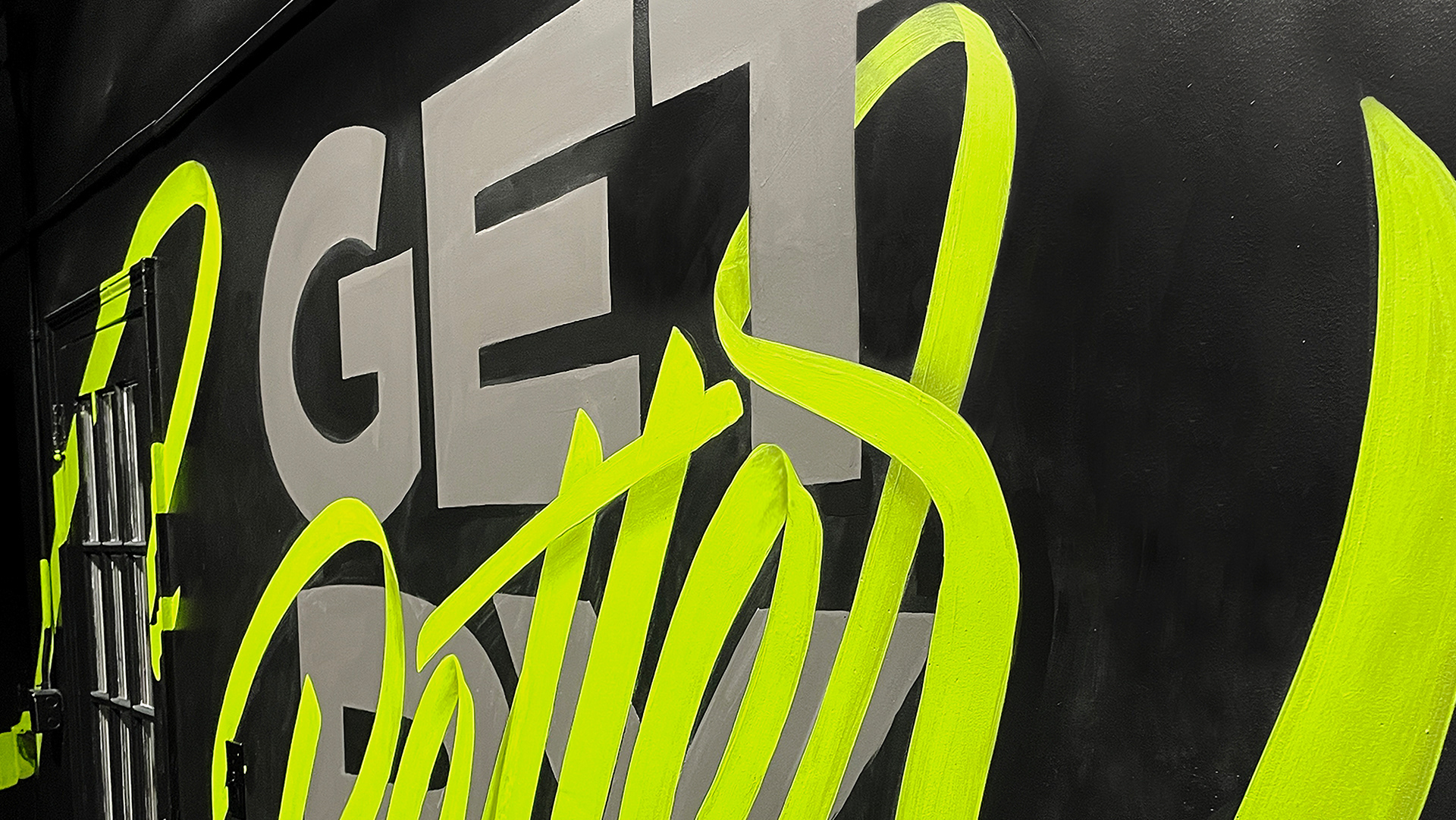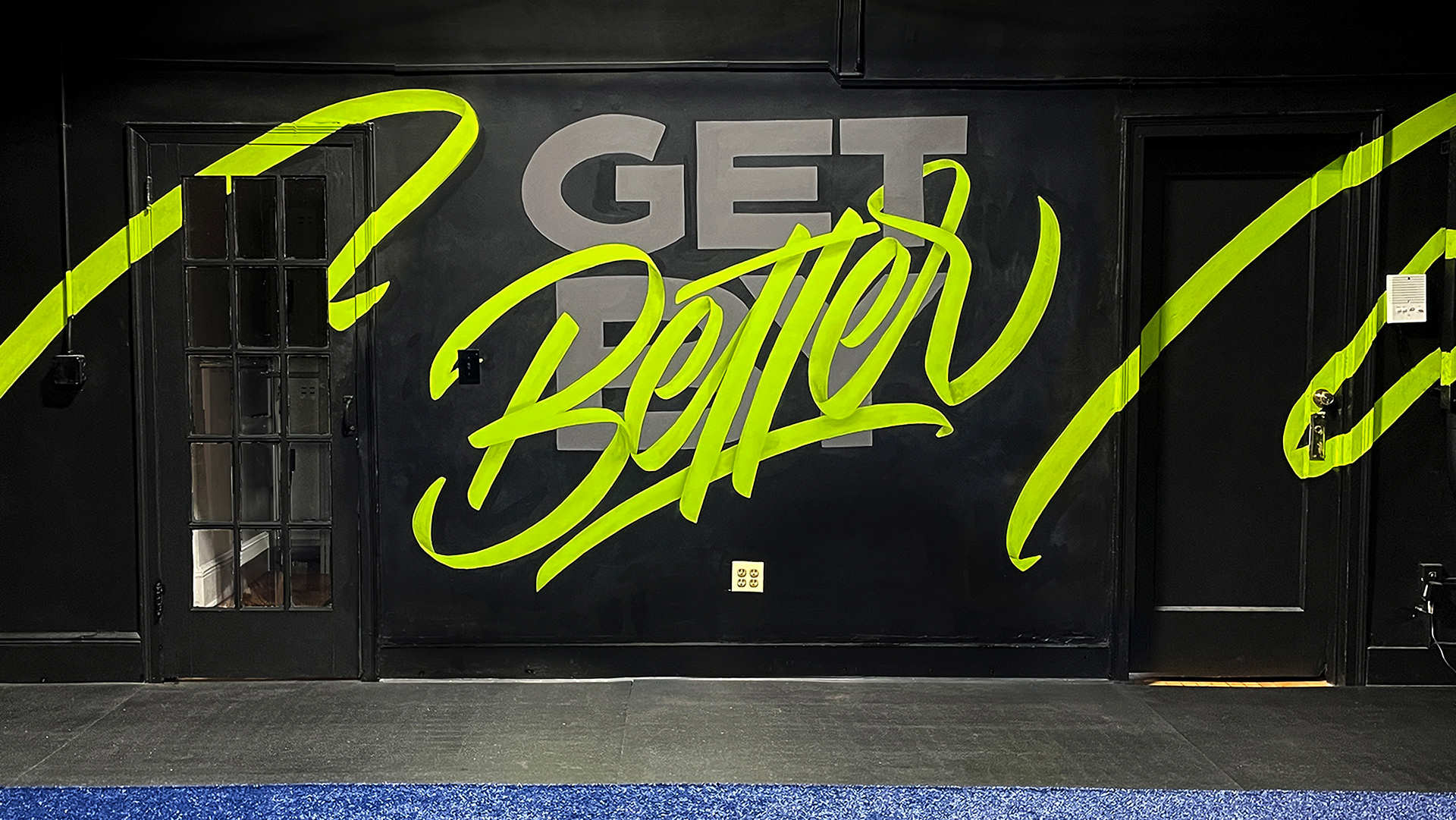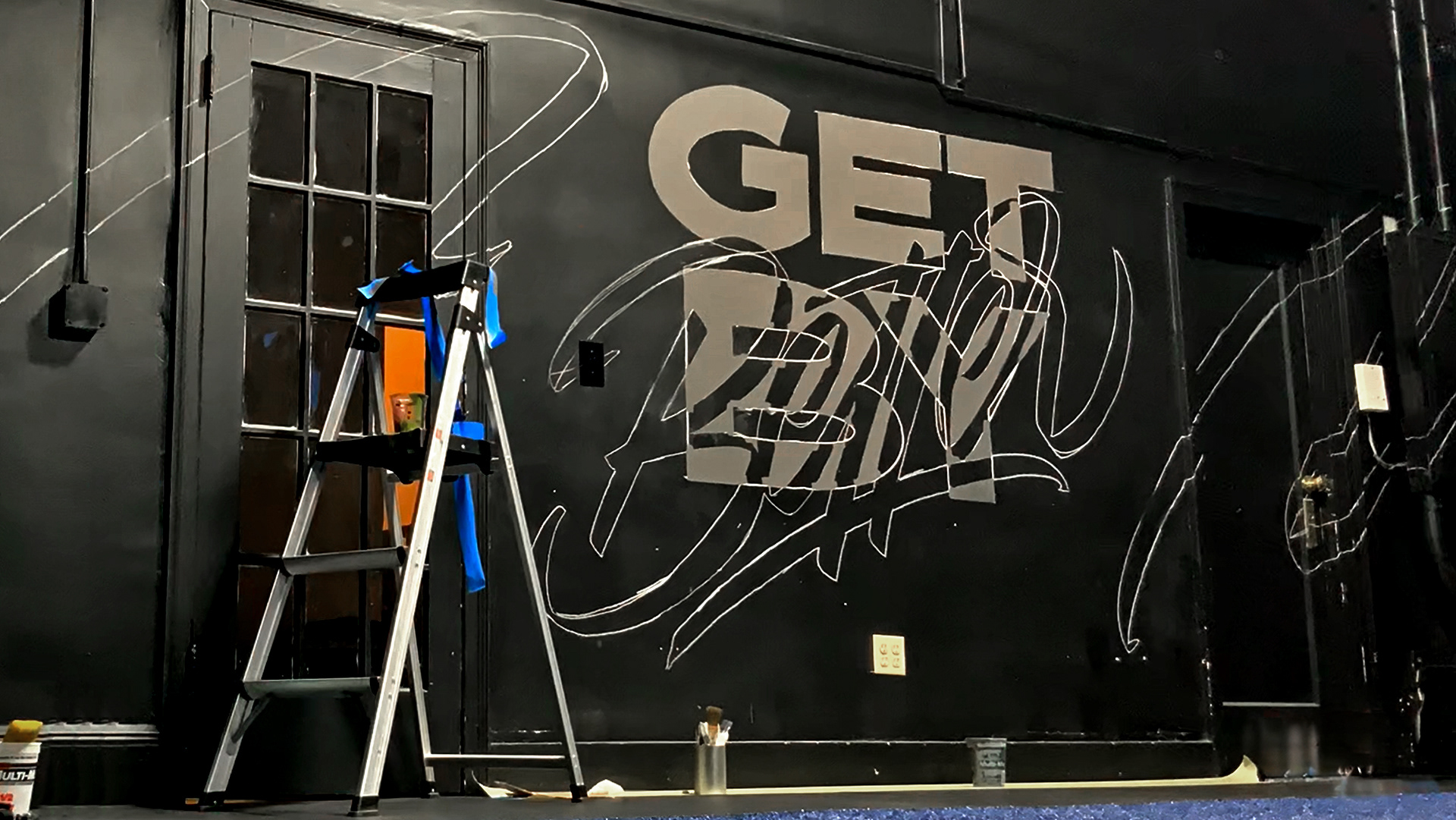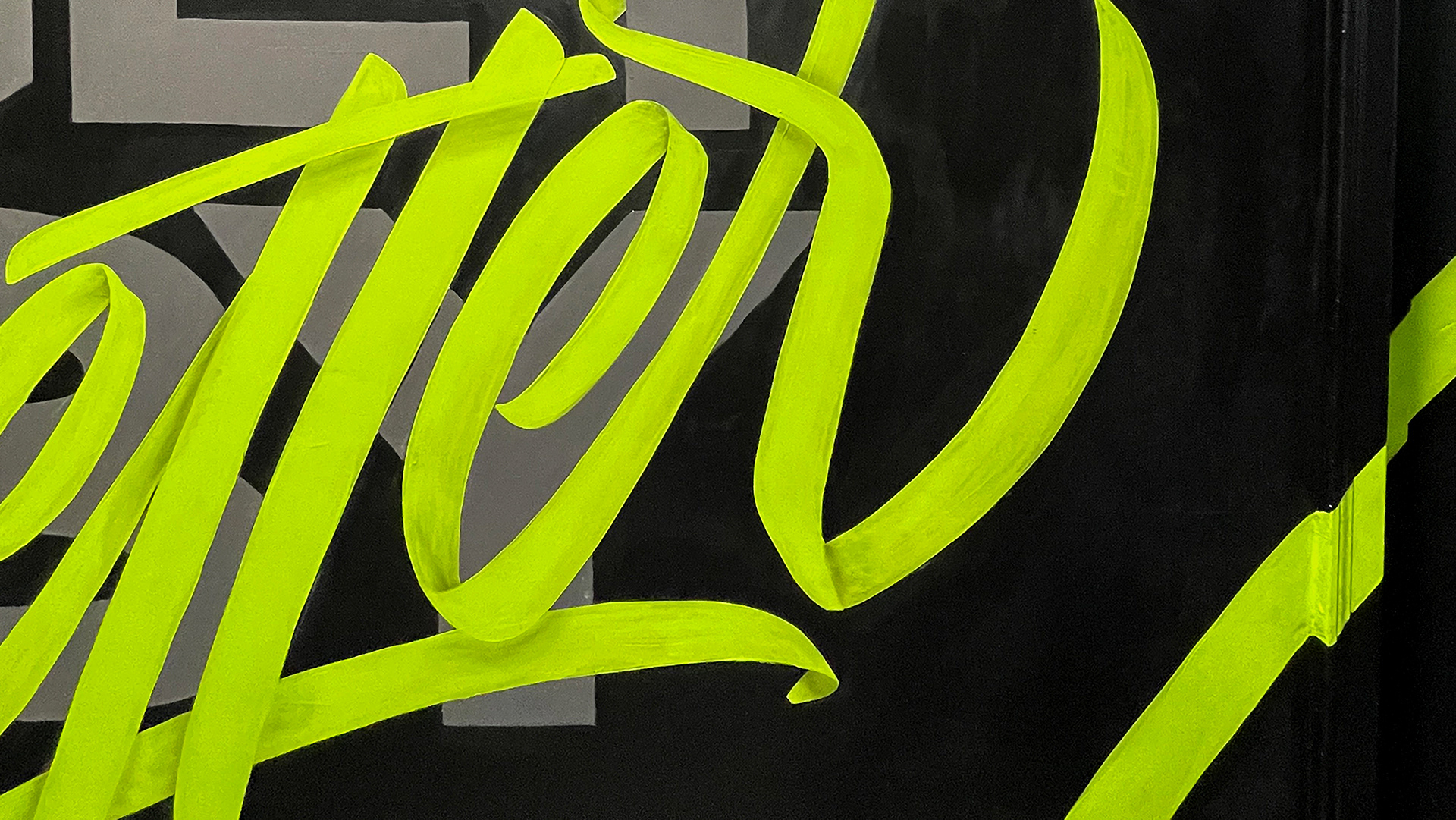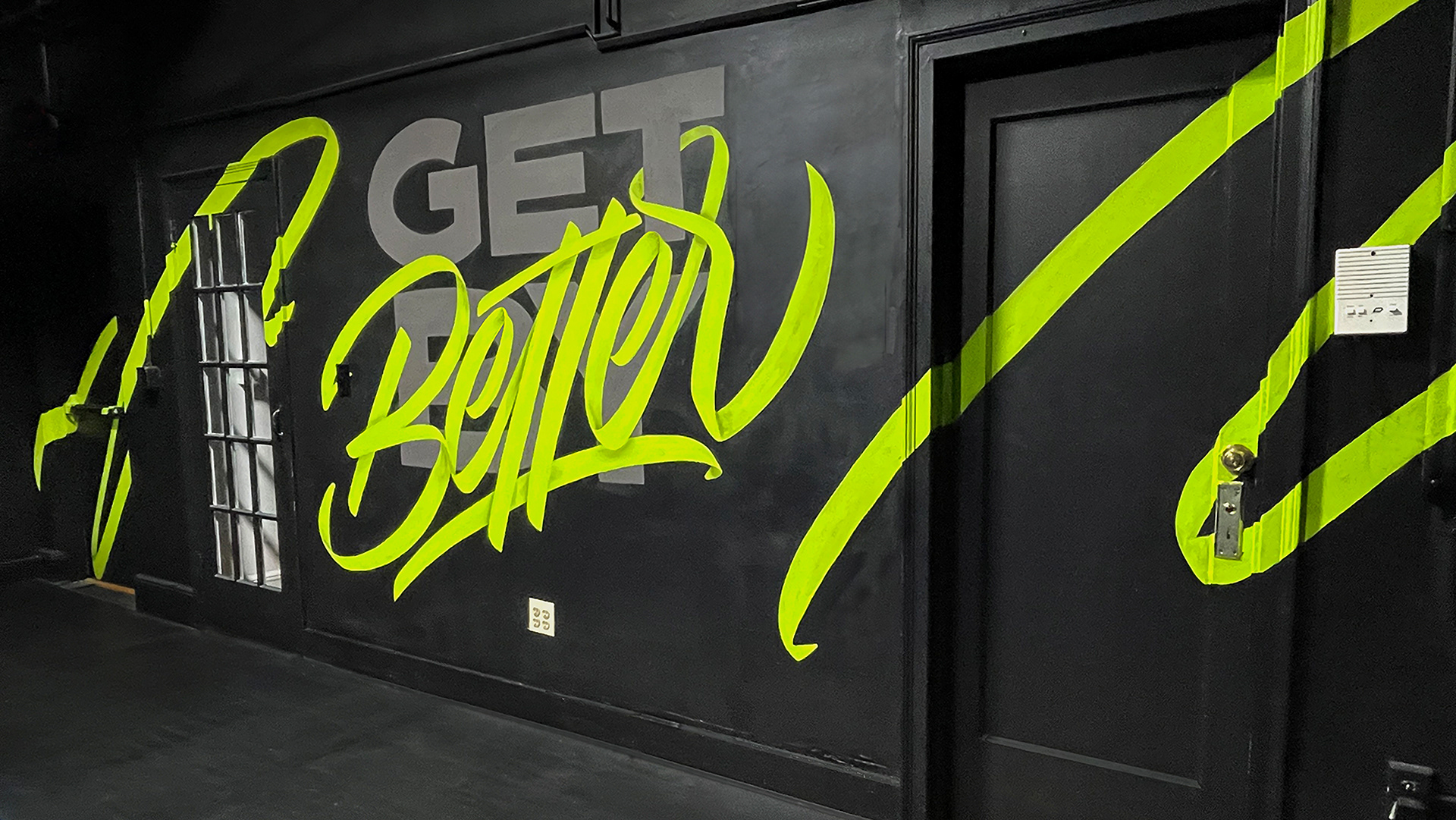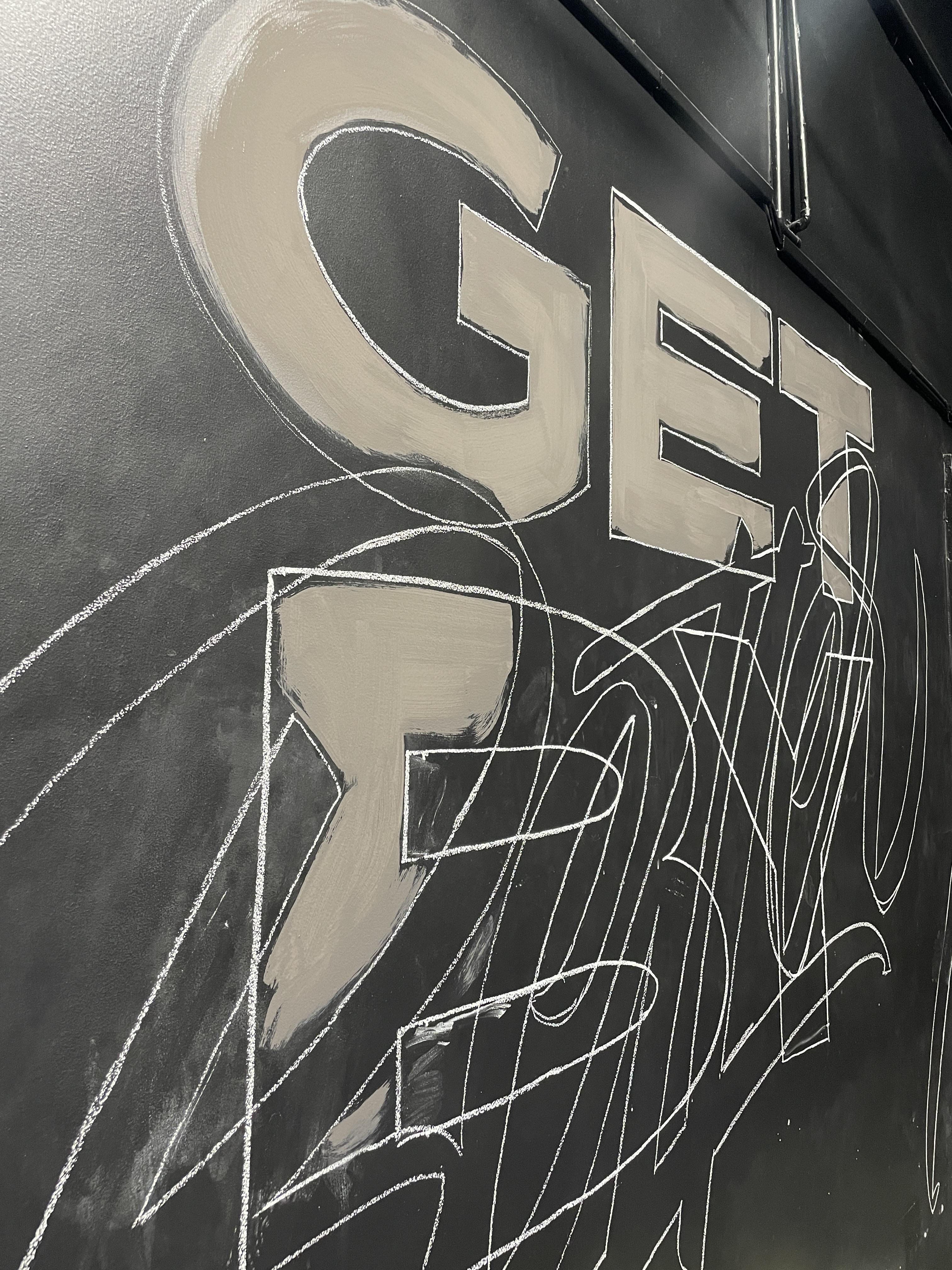
Commissioned mural for Char Fitness interior gym wall. The juxtaposition of the words and colors create an energetic and motivational message. 25 x 10 feet, spray paint & acrylic paint